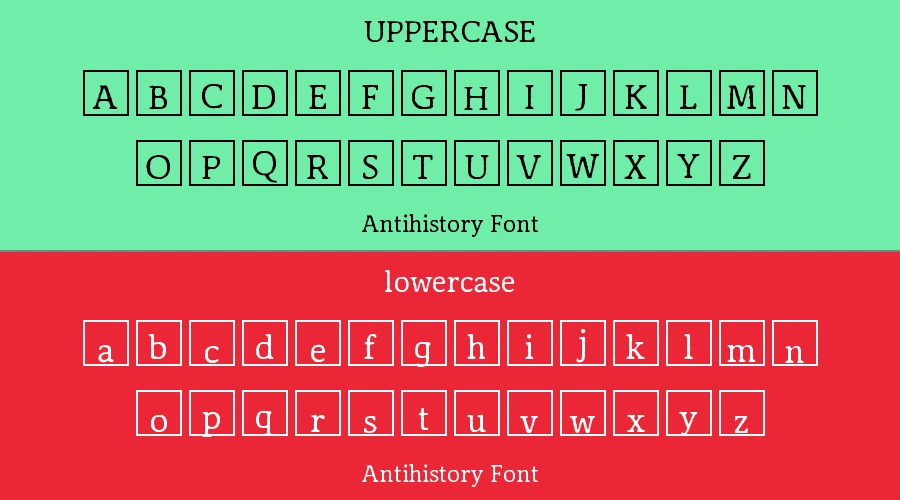
About Antihistory Font
Designed with precision, Antihistory Font merges sharp edges with refinement in every character. This versatility makes it particularly effective for exhibition design, where functionality and brand power directly impact communication quality. Each letterform demonstrates meticulous craftsmanship.
Technical excellence shines through elements like swash extensions and contextual ligatures, enhancing typographic versatility. In campaign headers settings, Antihistory Font proves its worth through superior OCR compatibility. The thoughtful execution of joint detail and design lineage ensures professional results.